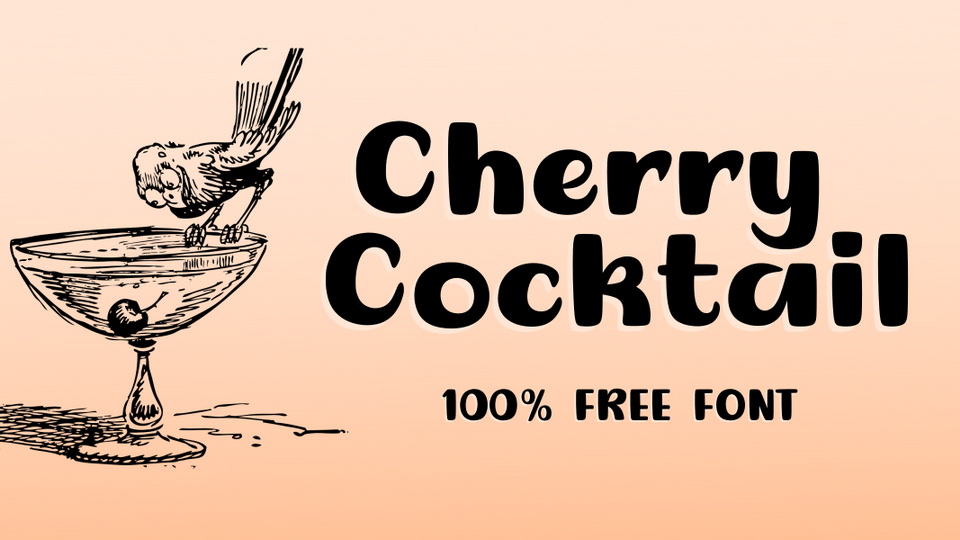
Feb 8, 2025Script & HandwrittenCherry Cocktail Font Cherry Cocktail is a cute and playful hand drawn font. It’s a great typeface for short texts, invitations, headlines, social media and advertising. Font DetailsDesigned by: Joe LetterWebsiteLicense: Free for commercial use Download Cherry Cocktail FontFile size: 20.01 KBCreated: February 16, 2025Updated: February 16, 2025 Download Explore similar fonts Licobe Font Picky Charm Font Duo Bakula Font Sunshine Surprise Font Brew Today Font Duo Thedrip Font # Cartoon# Casual# Cute# Handwriting# Playful# Smooth More fonts by Joe LetterComic Shark FontRain Shaman FontDummy Brush FontBlueberry Cupcake FontPlanet Garlic FontJust A Moment FontDanish Marker FontReadiculous Font